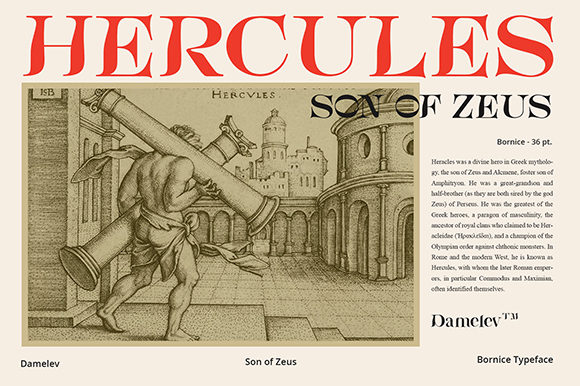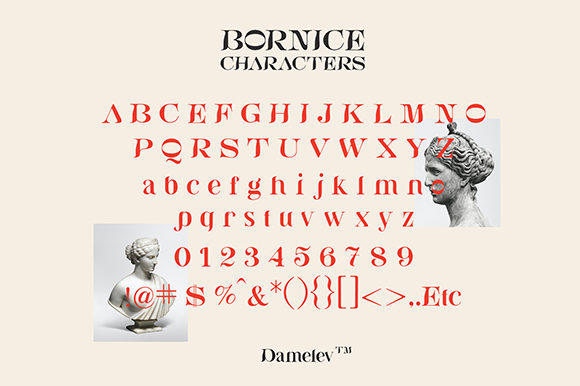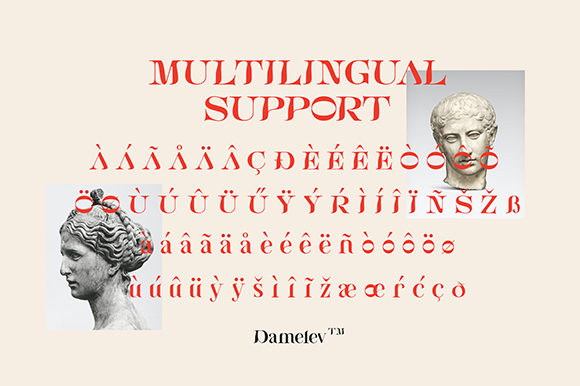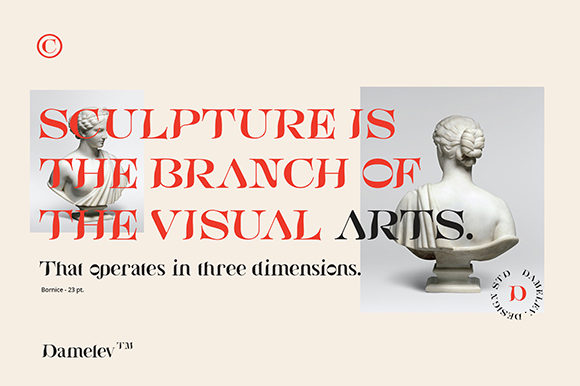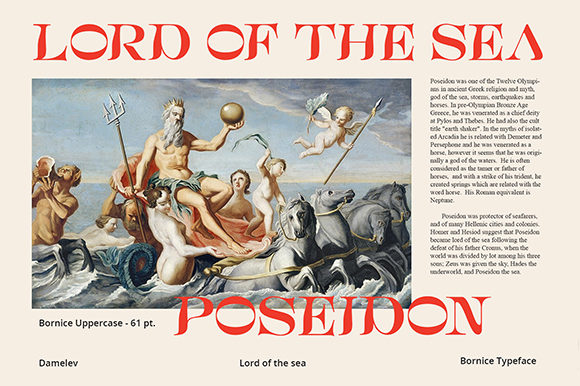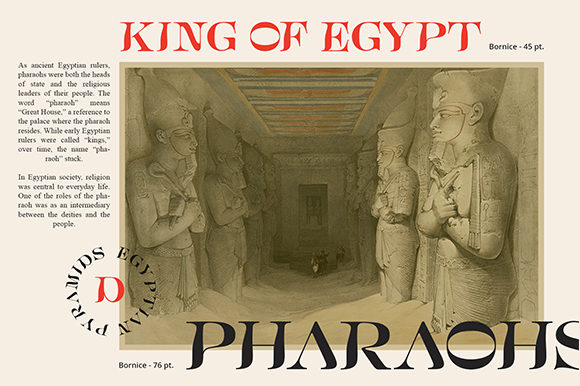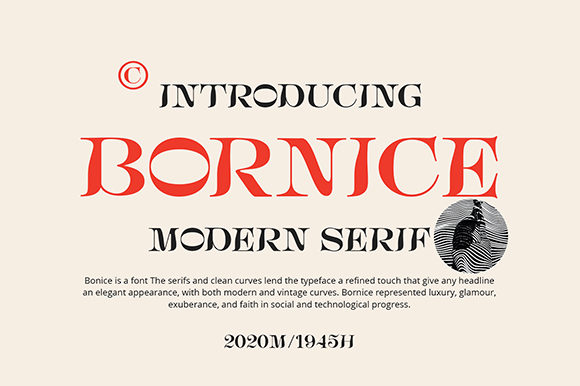
Bornice Font: Elevate Your Designs with a Modern and Unique Display Font
In the world of typography, a font can make or break a design. For creative professionals and crafters, finding the perfect font that captures the essence of their project can be a daunting task. This is where Bornice Font comes in – a modern and unique display font designed to take your creative projects to the next level. In this article, we’ll explore the features and benefits of Bornice Font, and how it can be the perfect addition to your design toolkit.
What is Bornice Font?
Bornice Font is a modern and unique display font that is specifically designed for creative projects. Its sleek and sophisticated design makes it perfect for a wide range of applications, including logos, T-shirts, apparel, badges, invitations, packaging, headlines, posters, magazines, greeting cards, and wedding invitations.
Key Features of Bornice Font
- Modern and Unique Design: Bornice Font boasts a modern and unique design that is sure to make your projects stand out from the crowd.
- High-Quality Letters: The font features high-quality letters that are crisp and clear, making it perfect for both digital and print applications.
- Versatile: Bornice Font is incredibly versatile and can be used for a wide range of creative projects, from logos and branding to invitations and packaging.
- Easily Customizable: The font is easily customizable, allowing you to adjust the size, color, and style to fit your project’s needs.
Benefits of Using Bornice Font
So, why should you choose Bornice Font for your creative projects? Here are just a few benefits of using this amazing font:
- Adds a Touch of Sophistication: Bornice Font adds a touch of sophistication and elegance to any project, making it perfect for high-end branding and luxury designs.
- Enhances Readability: The font’s clear and crisp letters enhance readability, making it perfect for body text and headlines.
- Perfect for Digital and Print Applications: Bornice Font is optimized for both digital and print applications, making it perfect for a wide range of projects.
- Time-Saving: With Bornice Font, you can save time and effort by using a pre-designed font that is ready to use.
How to Use Bornice Font in Your Designs
Using Bornice Font in your designs is easy and straightforward. Here are a few tips to get you started:
- Pair it with Other Fonts: Bornice Font pairs well with other fonts, making it perfect for creating stunning font combinations.
- Experiment with Colors: The font looks great in a variety of colors, so don’t be afraid to experiment and find the perfect color for your project.
- Adjust the Size and Style: Adjust the size and style of the font to fit your project’s needs and create visual hierarchy.
Who Can Benefit from Bornice Font?
Bornice Font is perfect for a wide range of creative professionals and crafters, including:
- Graphic Designers: Graphic designers can use Bornice Font to create stunning logos, branding, and marketing materials.
- Digital Artists: Digital artists can use the font to create amazing digital art, illustrations, and graphics.
- Crafters: Crafters can use Bornice Font to create beautiful handmade cards, invitations, and other paper crafts.
- Marketers: Marketers can use the font to create eye-catching headlines, posters, and social media graphics.
| Font Name | Bornice Font |
| Author | Damelev. |
In conclusion, Bornice Font is a modern and unique display font that is perfect for creative professionals and crafters. Its sleek and sophisticated design makes it perfect for a wide range of applications, from logos and branding to invitations and packaging. With its high-quality letters, versatility, and ease of use, Bornice Font is a must-have font for any design toolkit.